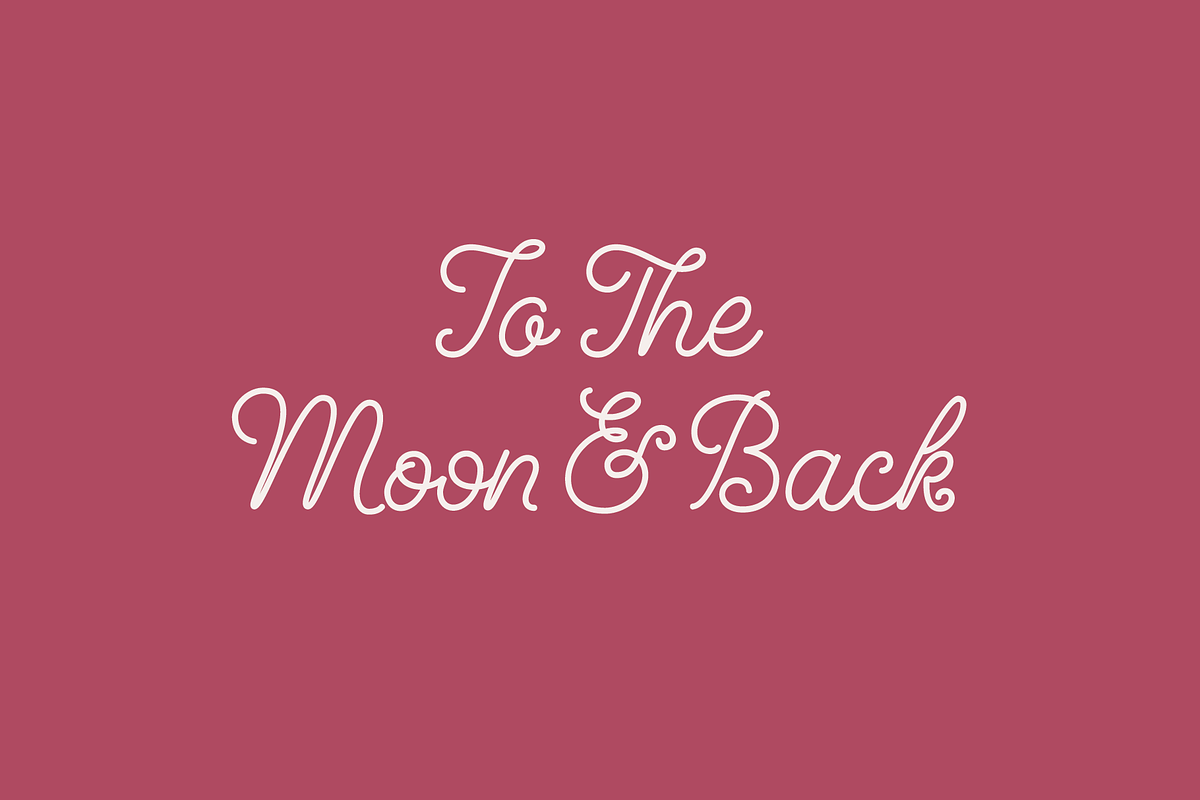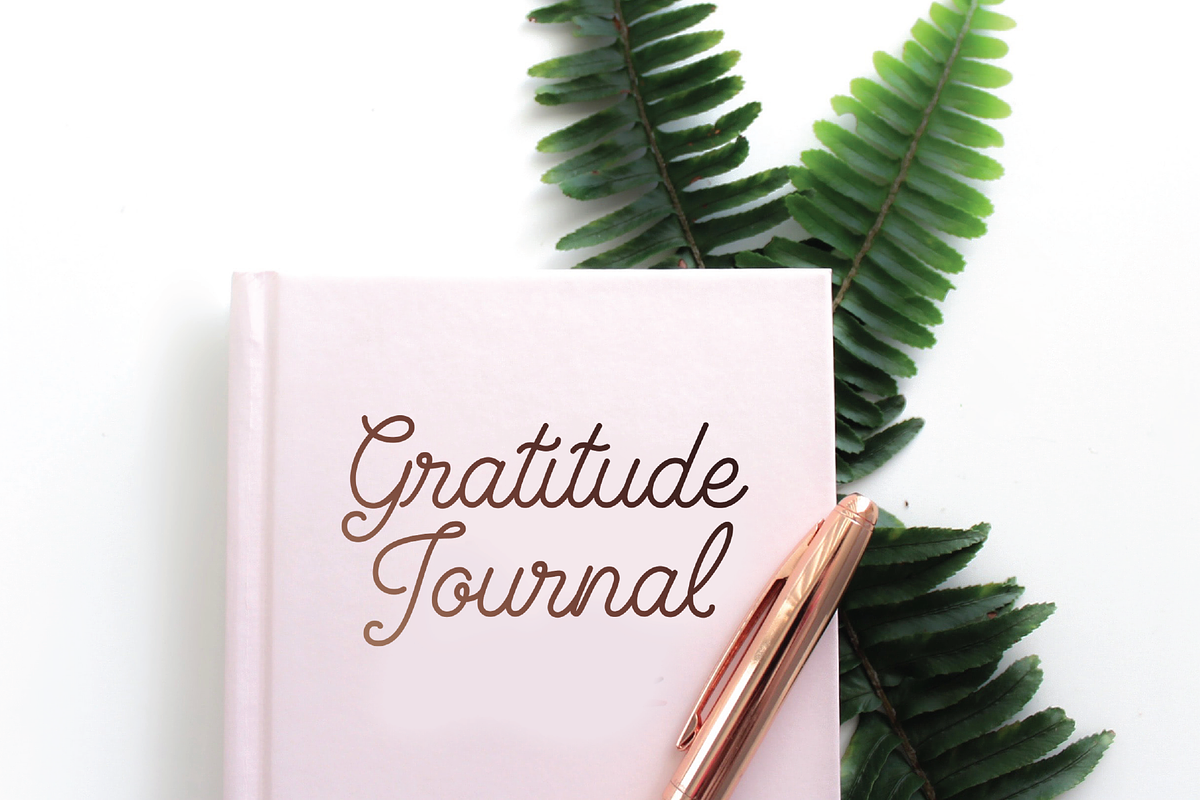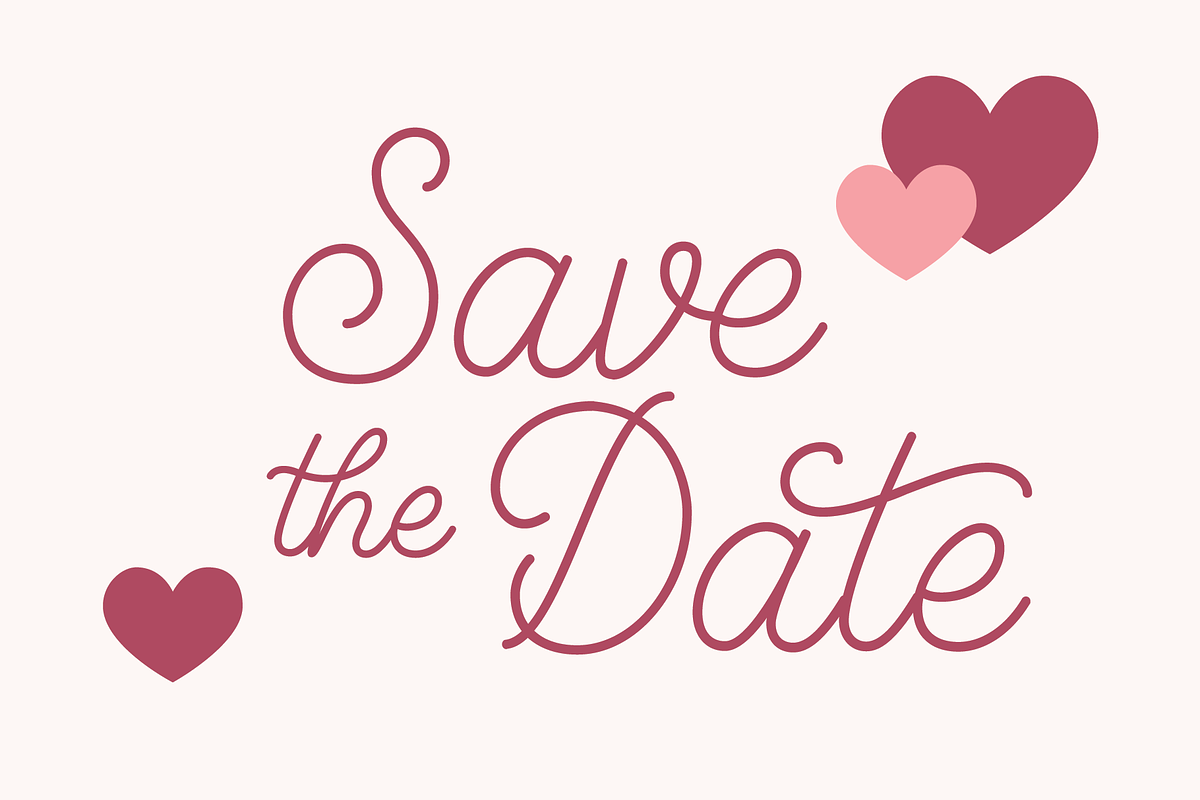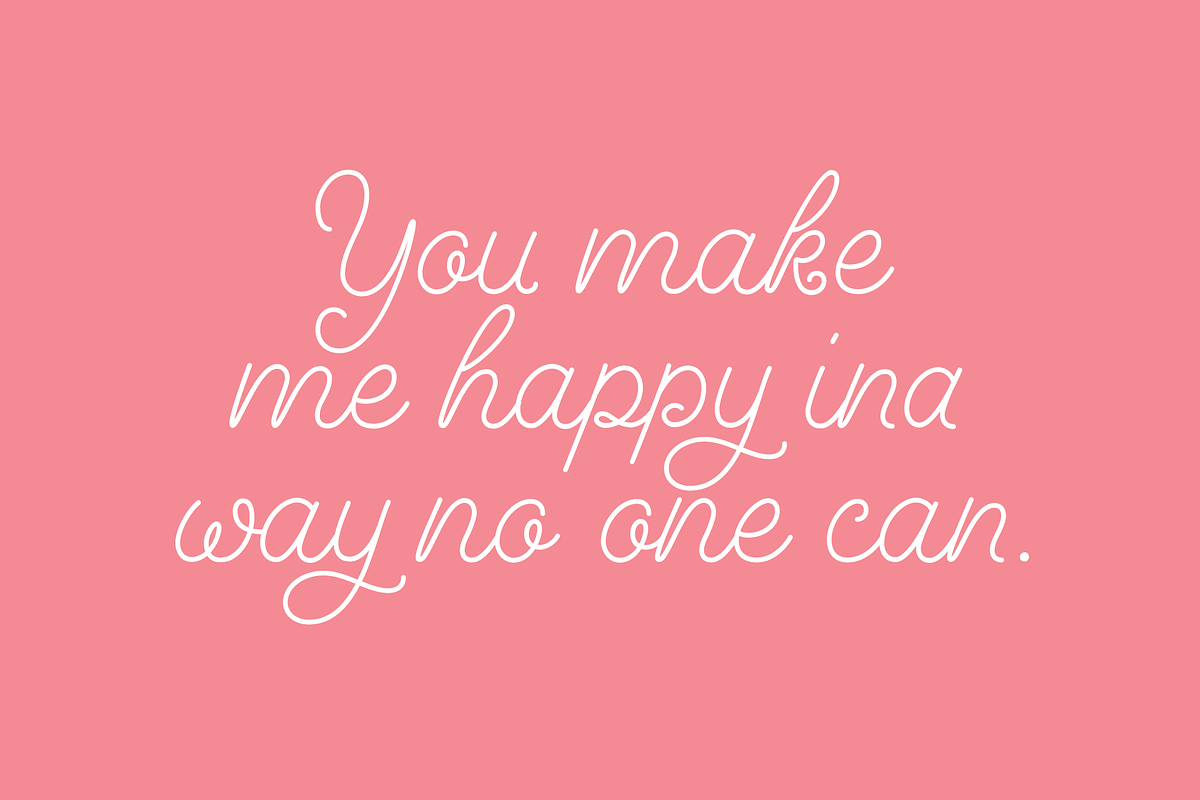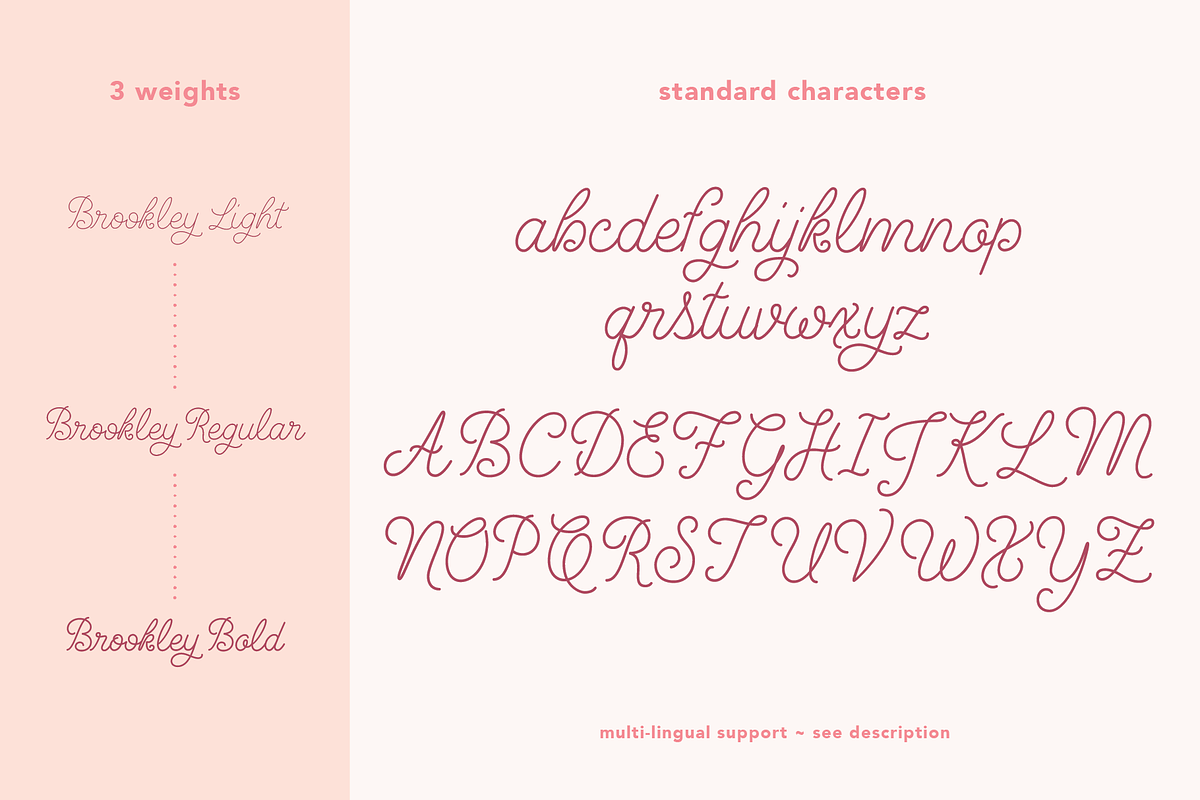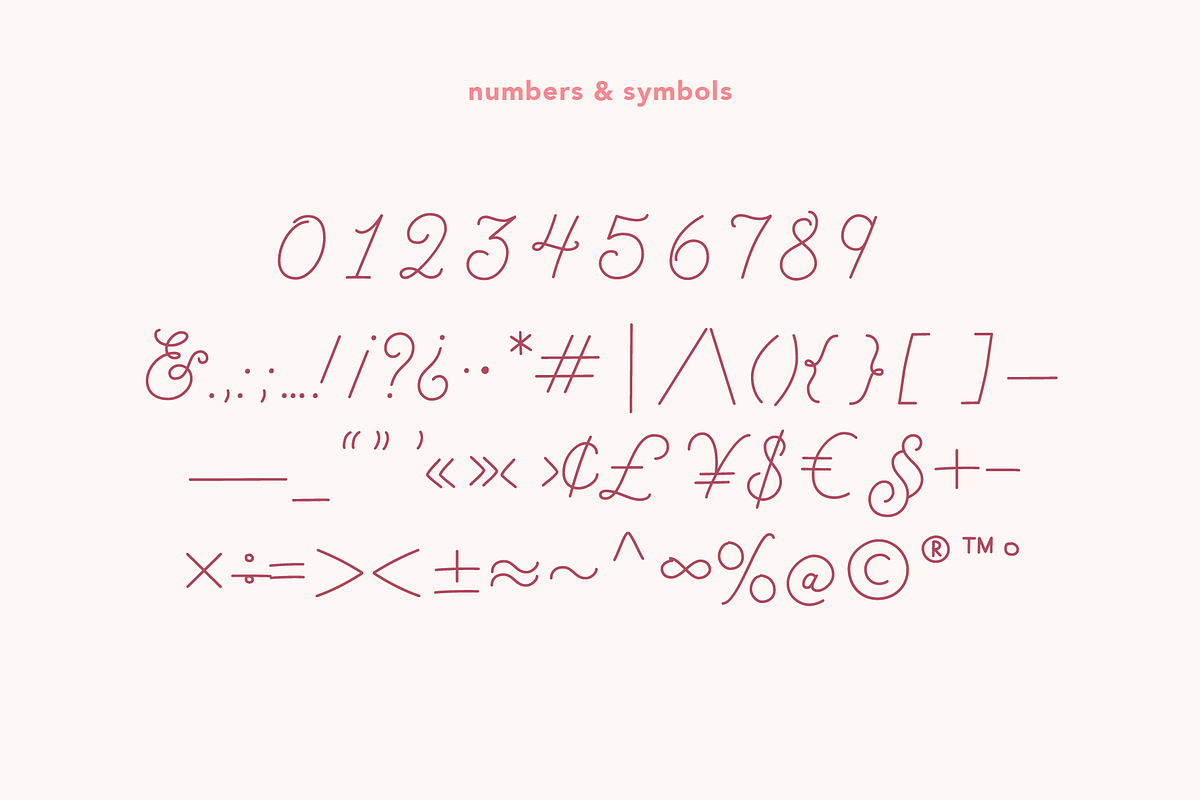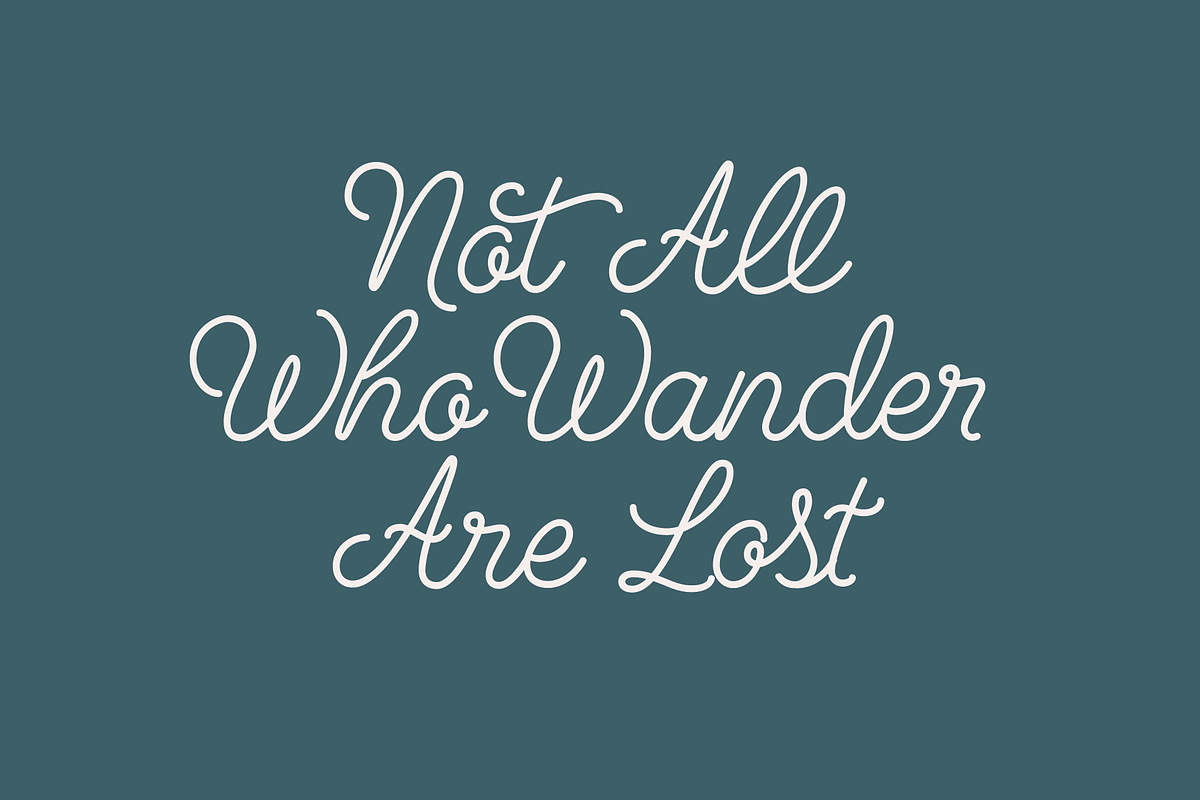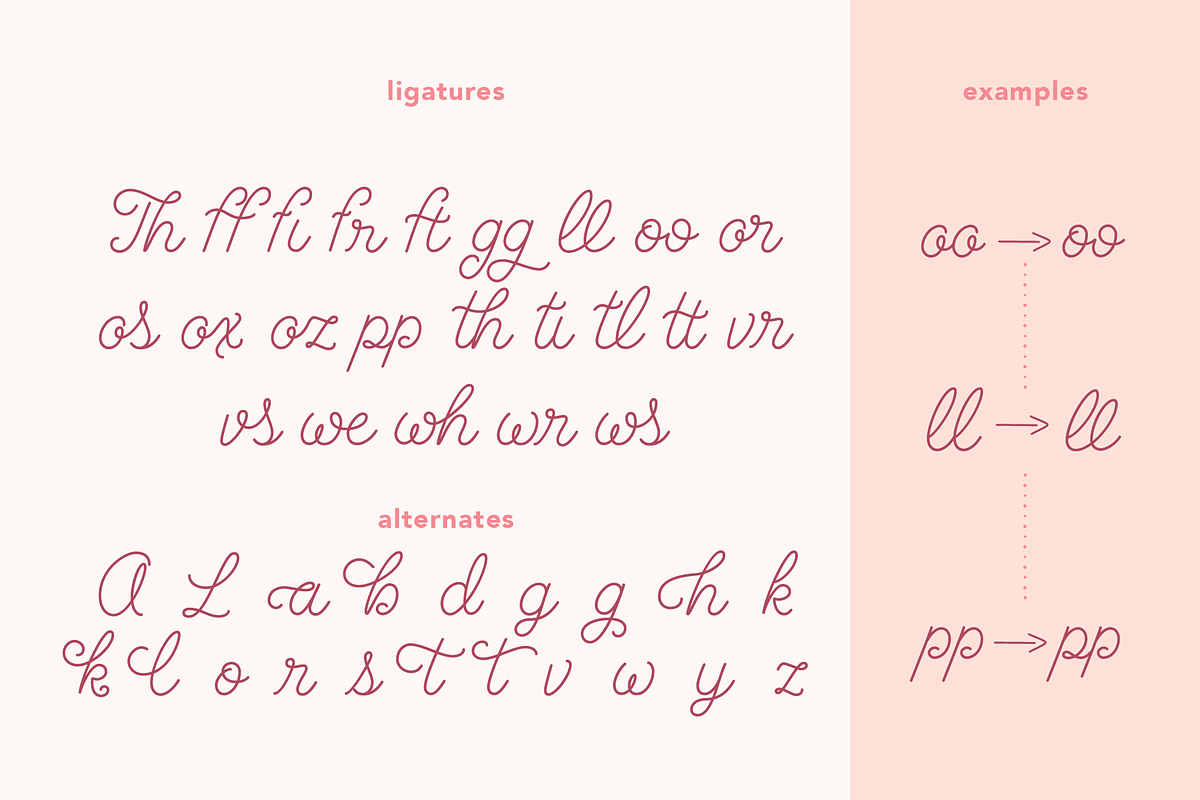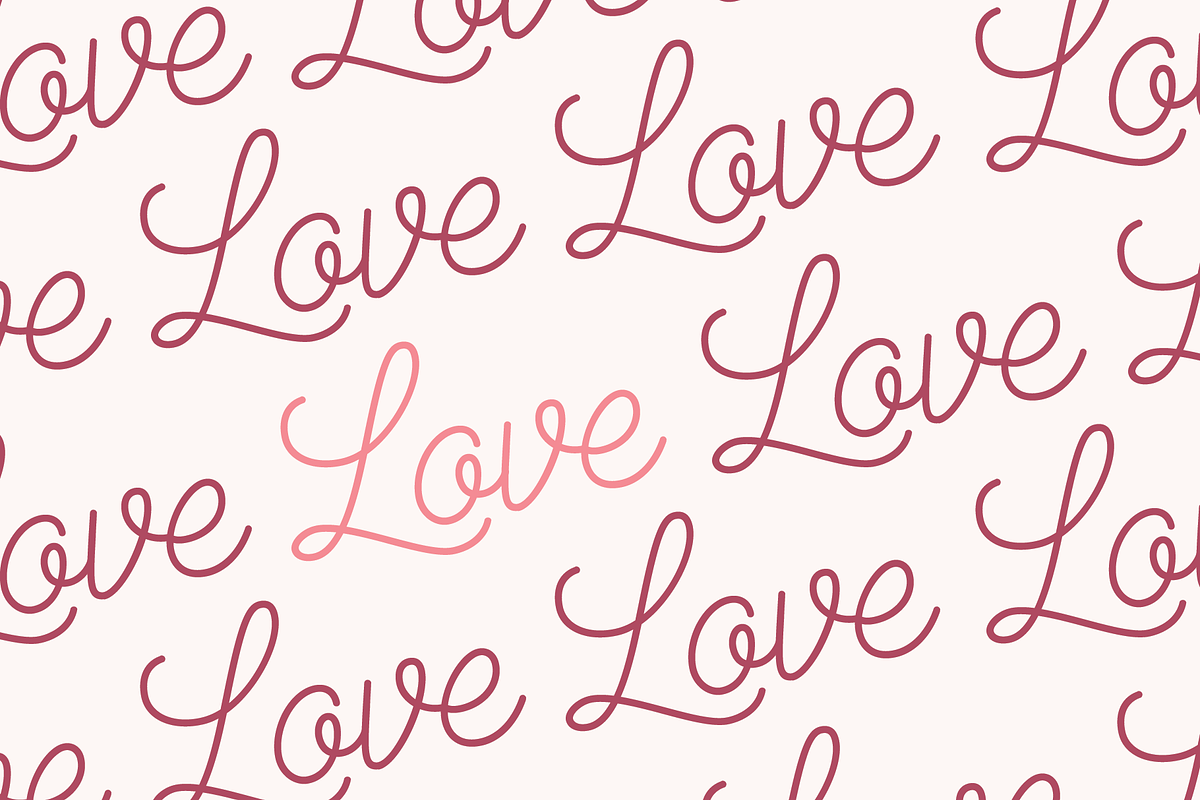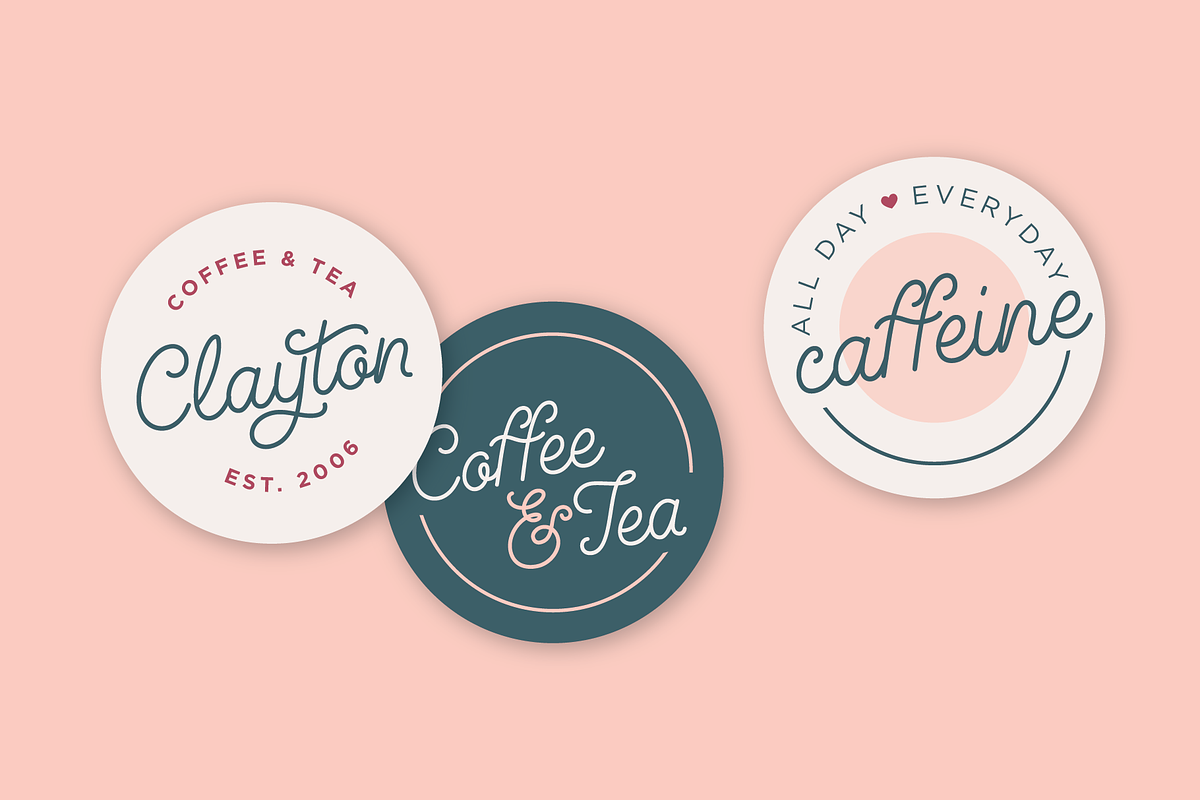
Brookley - Monoline Script Font
Brookley is a hand-drawn, monoline script font designed to add a beautiful, modern touch to your designs. The smooth edges create a clean look for your minimal and modern design projects.
It’s perfect for branding projects, social media posts, product packaging, product designs, labels, and invitations.
Brookley comes with 3 weights- light, regular and bold. 372 glyphs are included- including uppercase, lowercase, numerals, punctuation and includes OpenType alternates and ligatures for easy customization.
372 glyphs — Uppercase, lowercase, numbers, symbols, punctuation, 43 styled ligatures & alternate letters for more customization.
Multilingual Support — Multilingual Support is included for Western & Central European Languages.